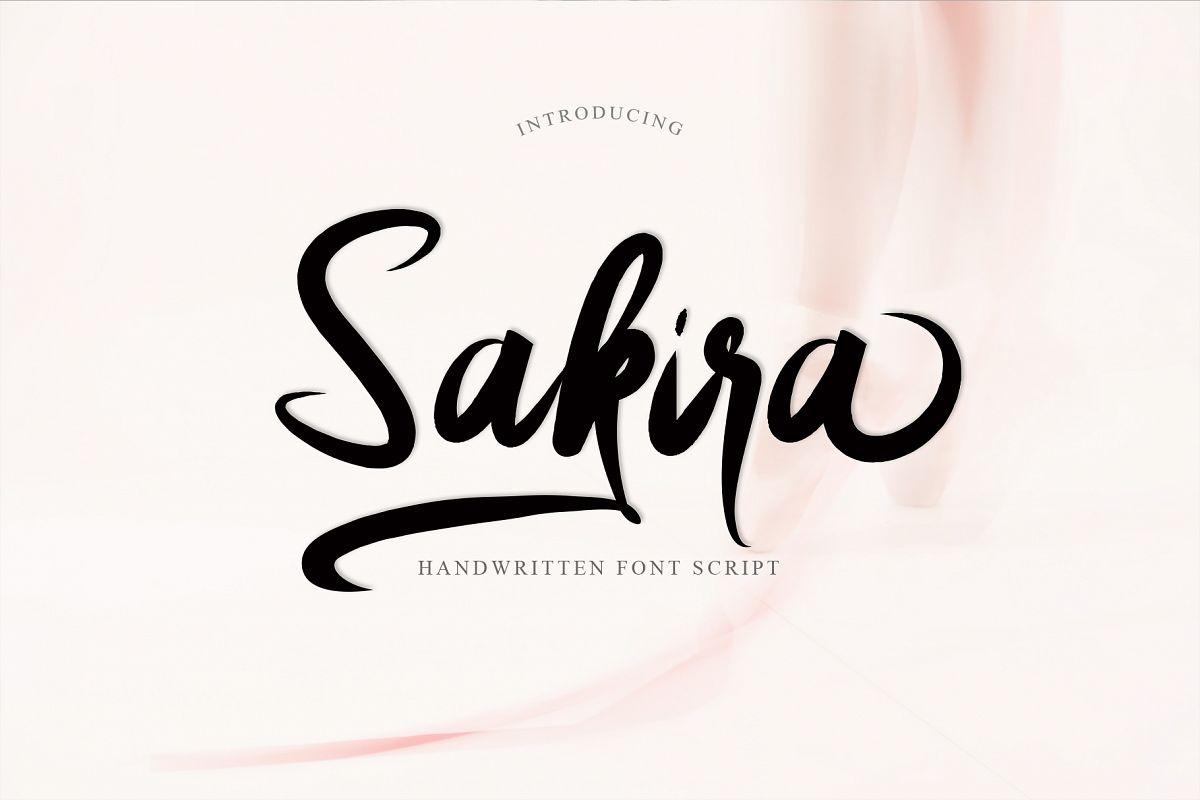
Sakira Script
Introducing
Sakira Script
Sakira Script a new fresh & modern script with a handmade calligraphy style, decorative characters and a dancing baseline! So beautiful on invitation like greeting cards, branding materials, business cards, quotes, posters, and more!!
The alternative characters were divided into several Open Type features such as Swash, Stylistic Sets, Stylistic Alternates, Contextual Alternates.
Sakira Script :